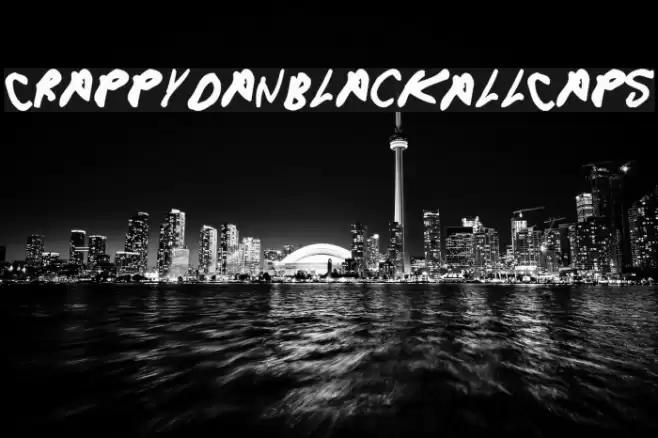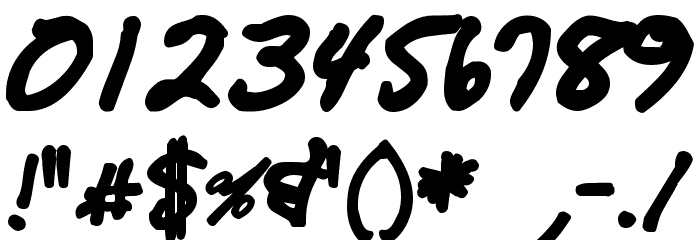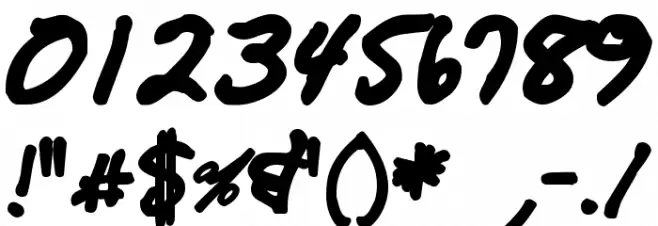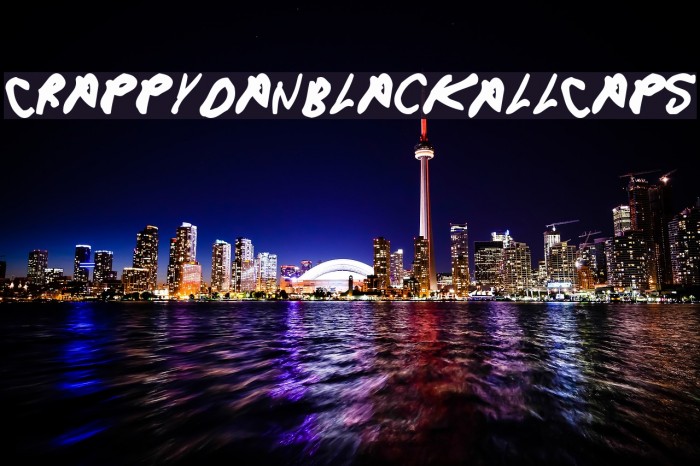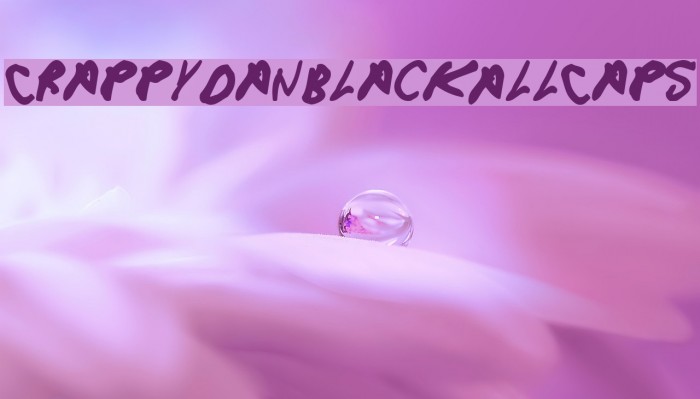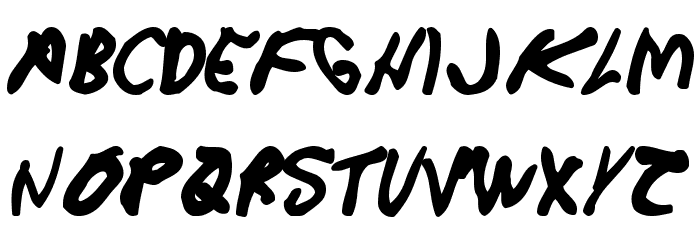
CrappyDanBlackAllCaps Font
CrappyDanBlackAllCaps Description
This font features a bold, energetic style with a handwritten appearance. The characters are thick and expressive, with a playful and dynamic flow. The uppercase and lowercase letters maintain a consistent style, emphasizing a casual and artistic vibe. The numbers and special characters follow the same bold and lively design, making the font suitable for creative and informal projects. The strokes are uneven, adding to the hand-drawn aesthetic, and the overall look is both modern and distinctive.
A bold, handwritten-style font with a playful and dynamic appearance from Uncategorized fonts.